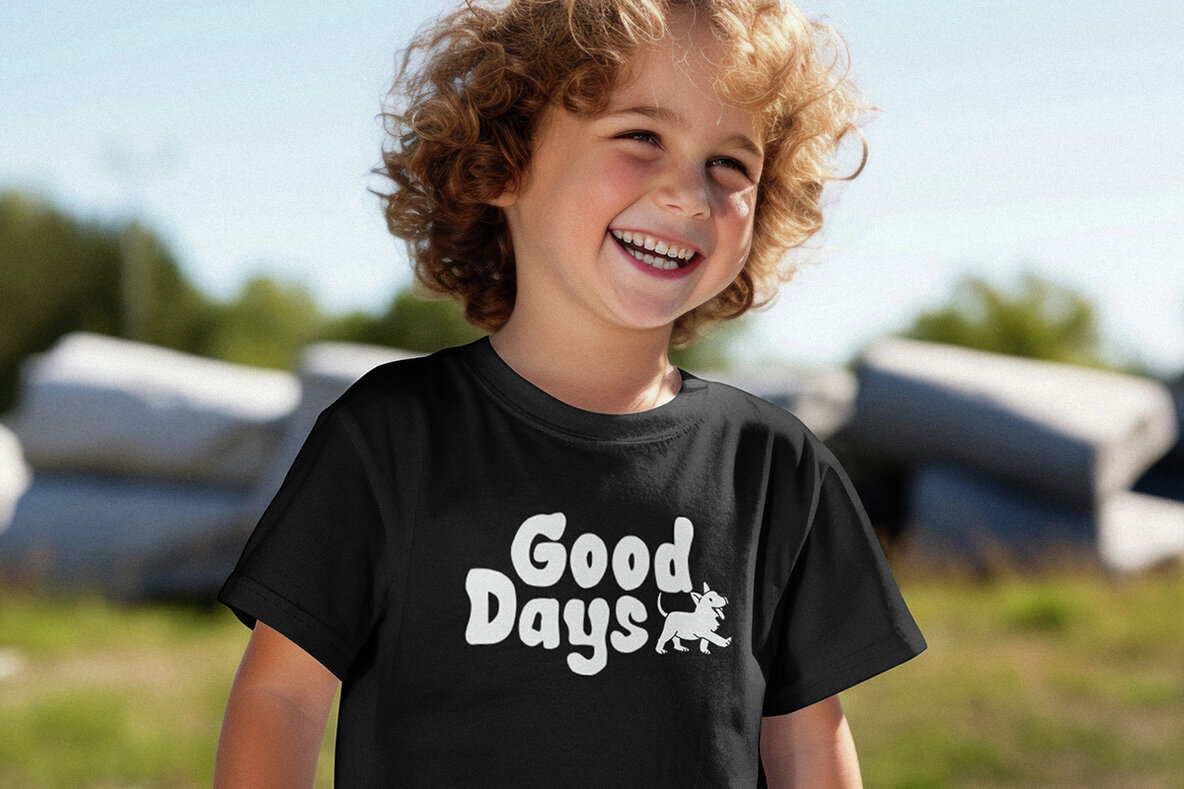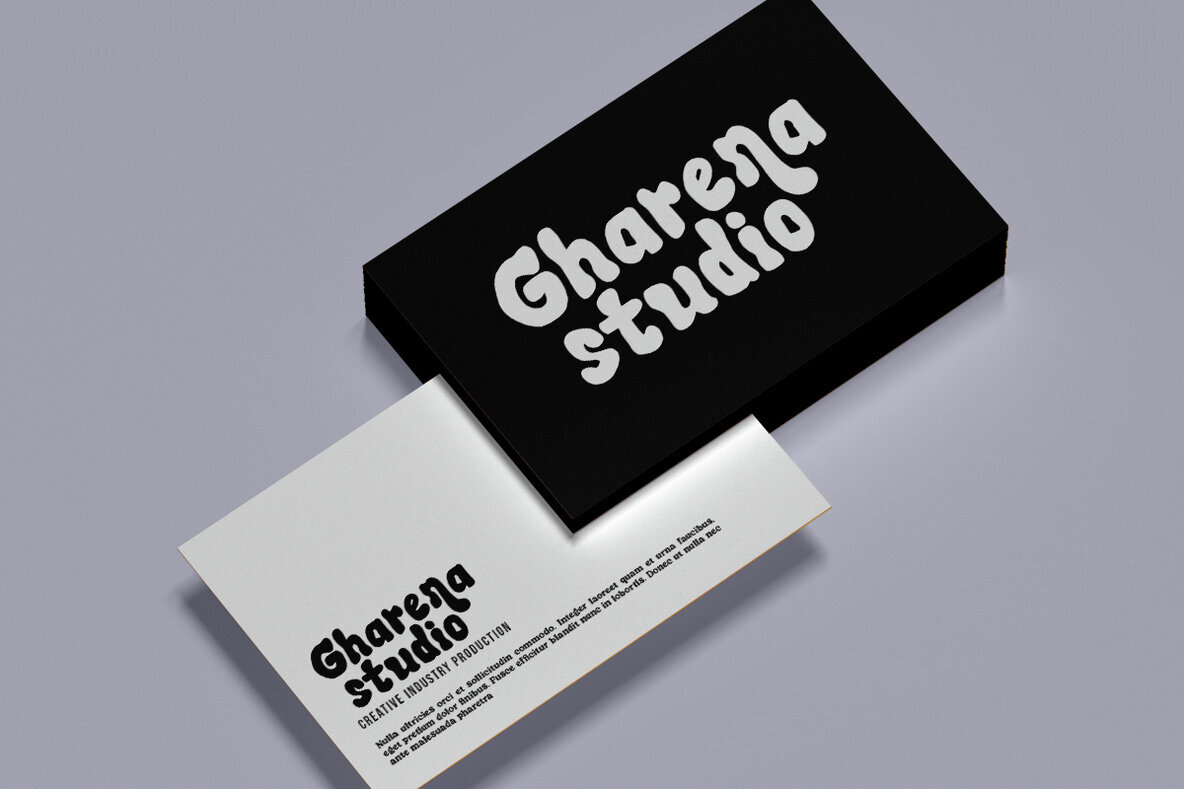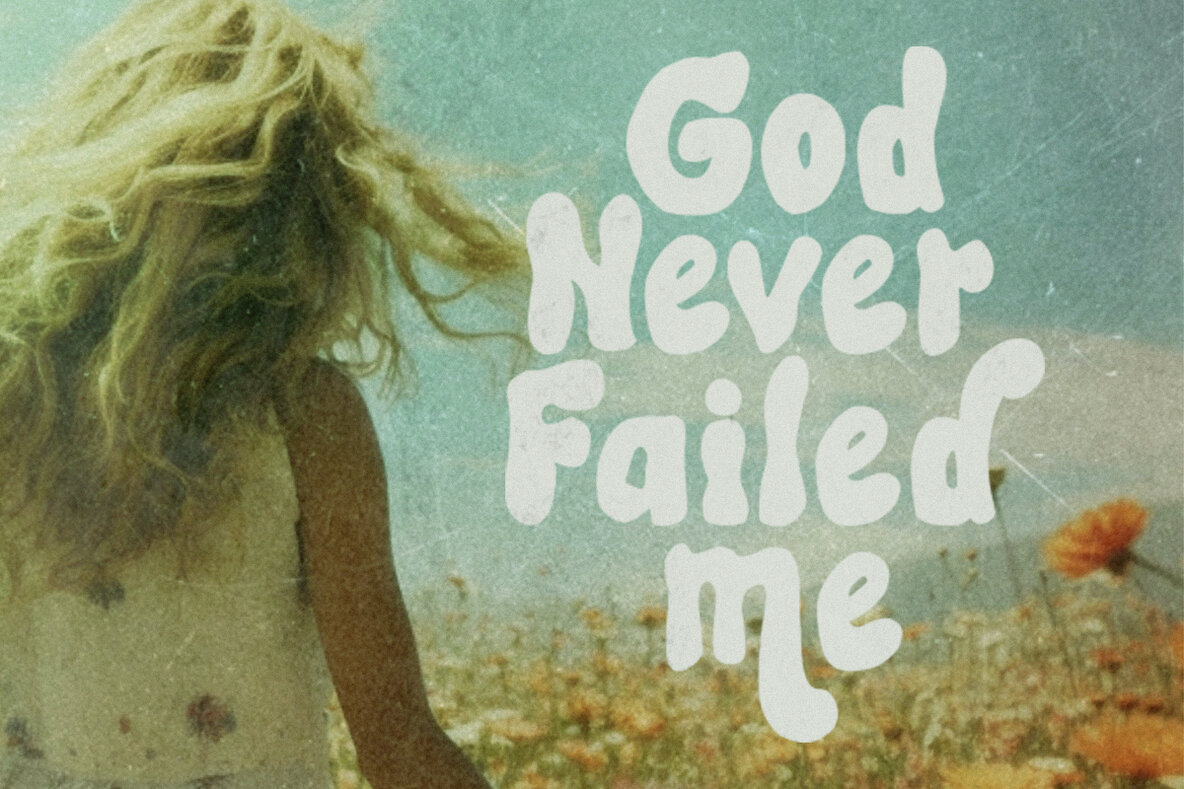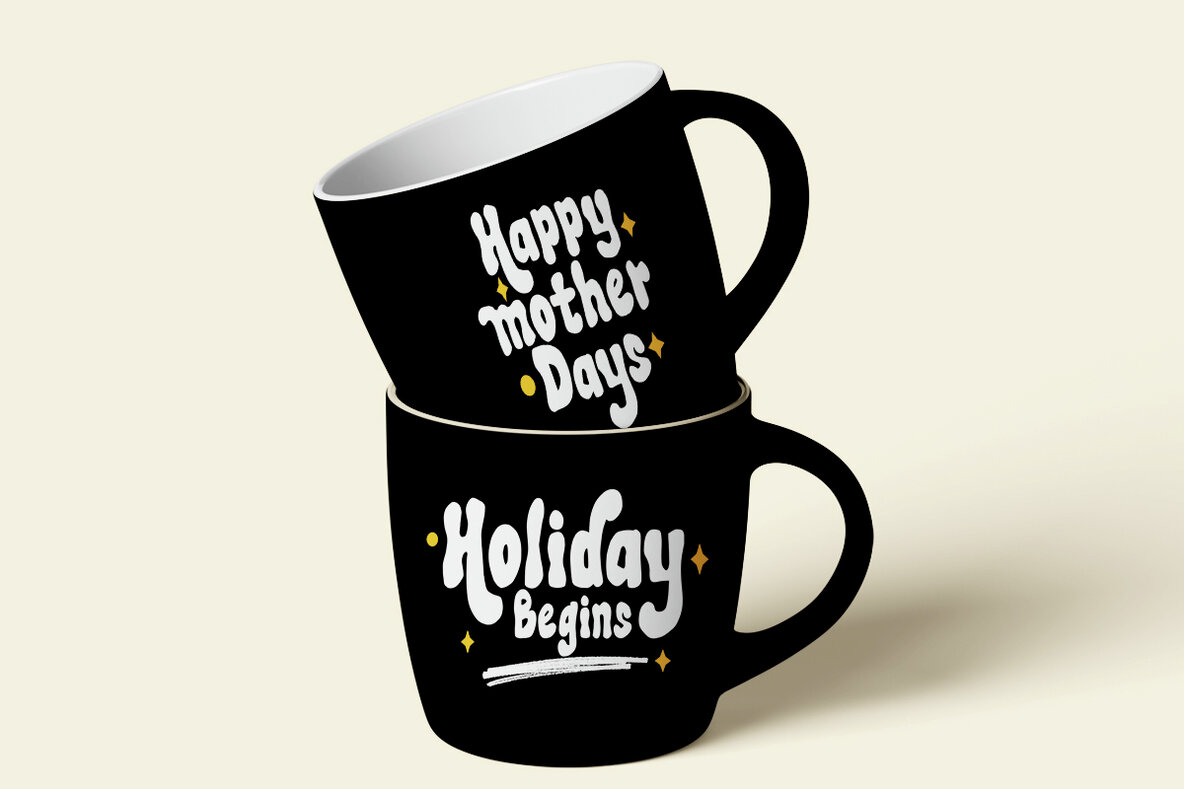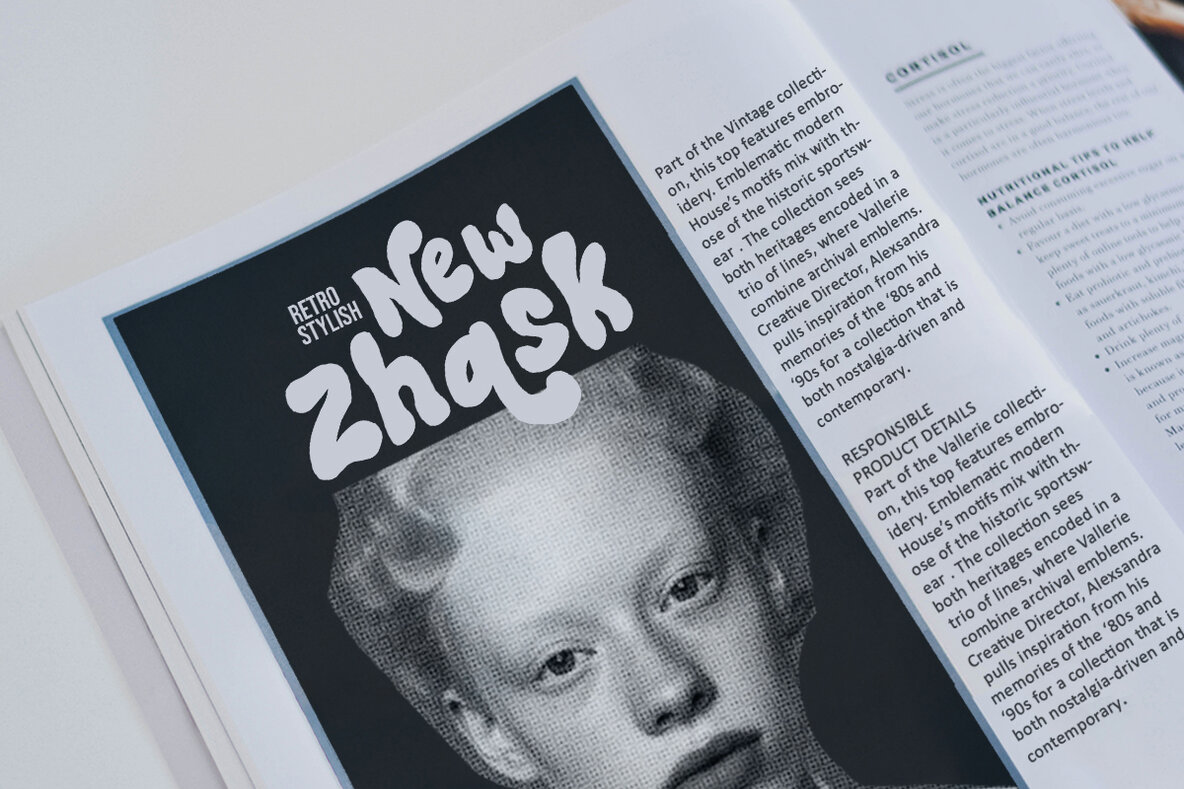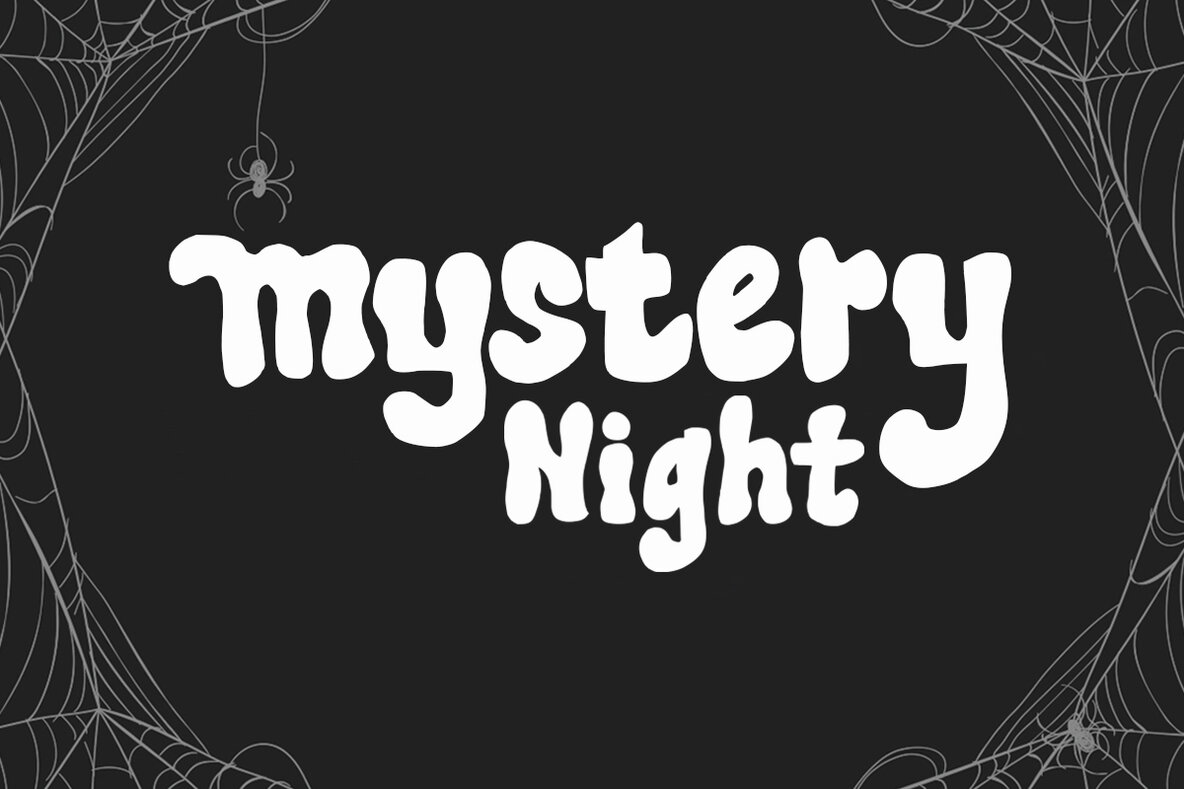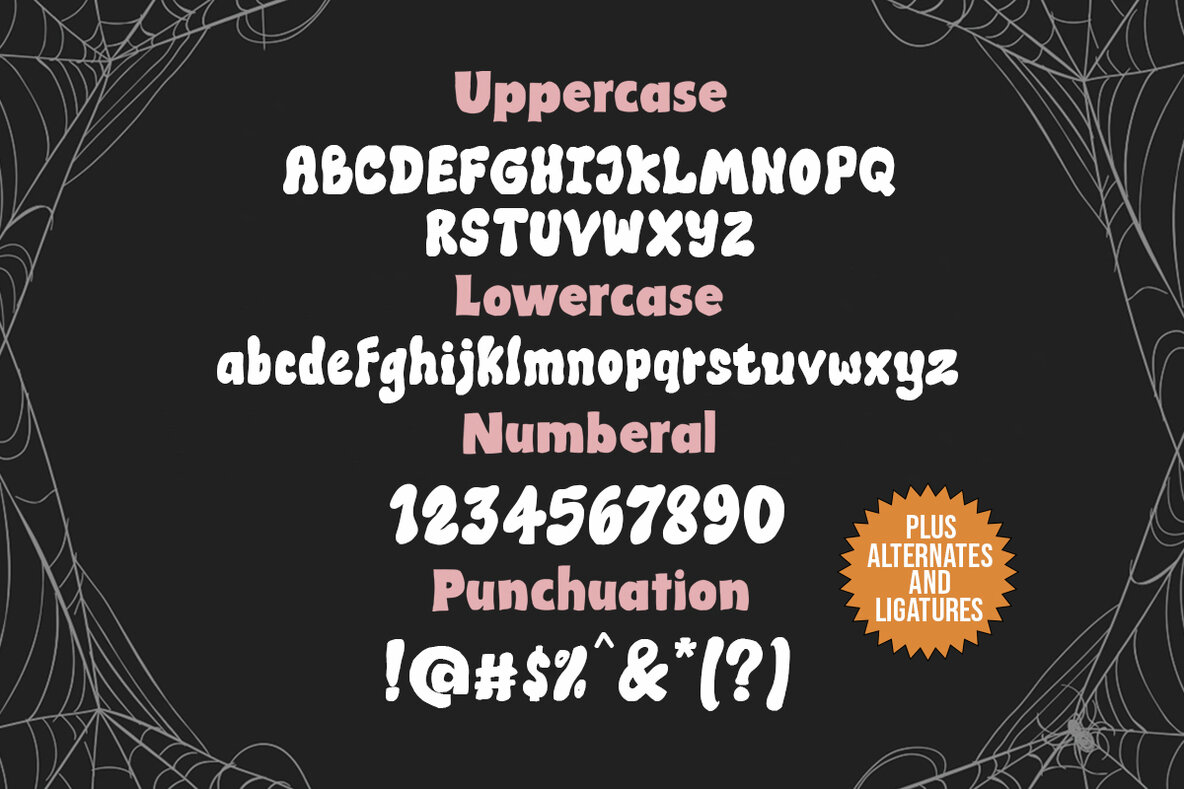
Namyra Font
Namyra Regular and Namyra Outline is a hand brush font that captures the natural texture of brush strokes and ink. Perfect for projects requiring a bold, artistic touch, this typeface suits various design needs such as blog titles, posters, wedding elements, and more. The organic, textured style makes it an excellent choice for creating impactful visuals in both personal and professional settings.
This typeface offers a comprehensive set of features, including uppercase and lowercase letters, ligatures, punctuation, numbers, and multilingual support, making it versatile for diverse applications. Whether you're designing t-shirts, book covers, business cards, or merchandise, Namyra provides a unique, handcrafted aesthetic that enhances the visual appeal of any project.